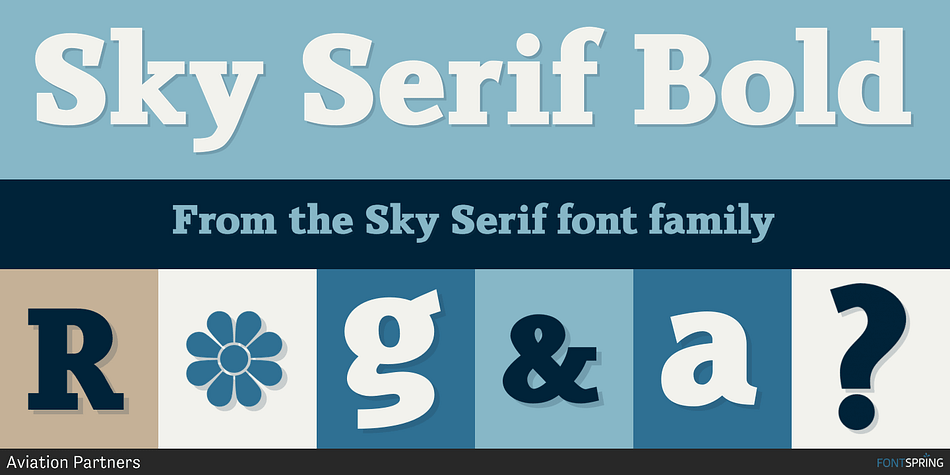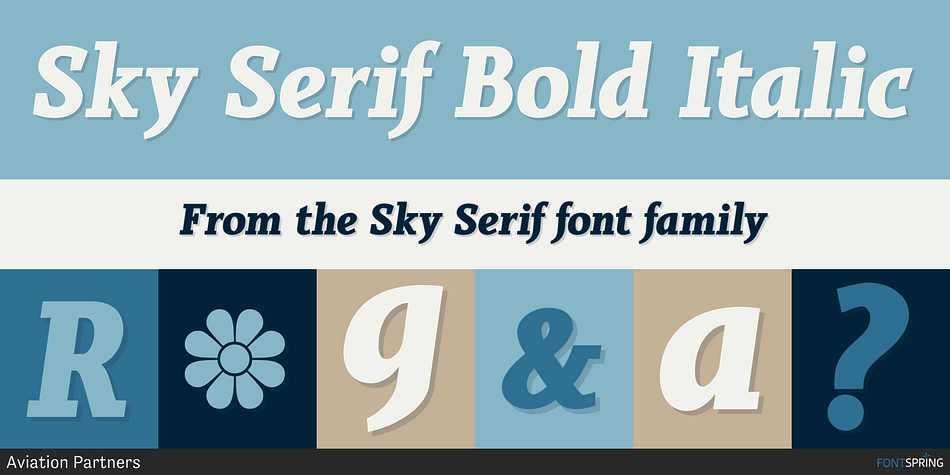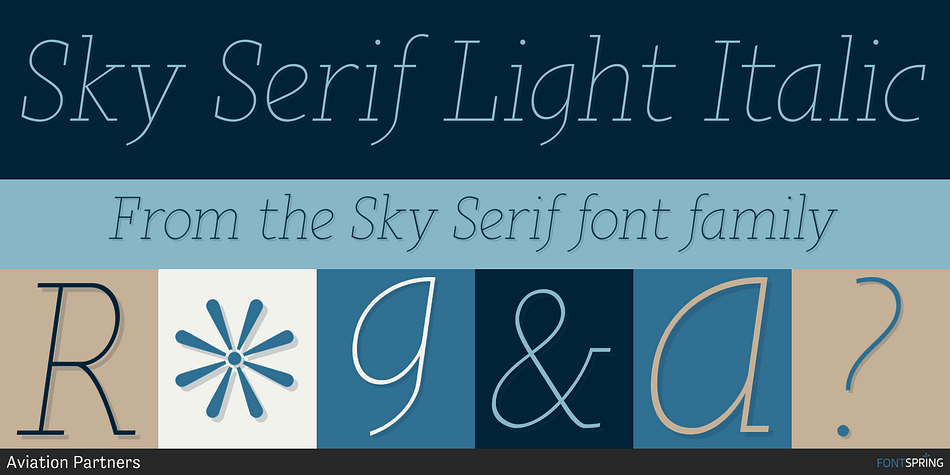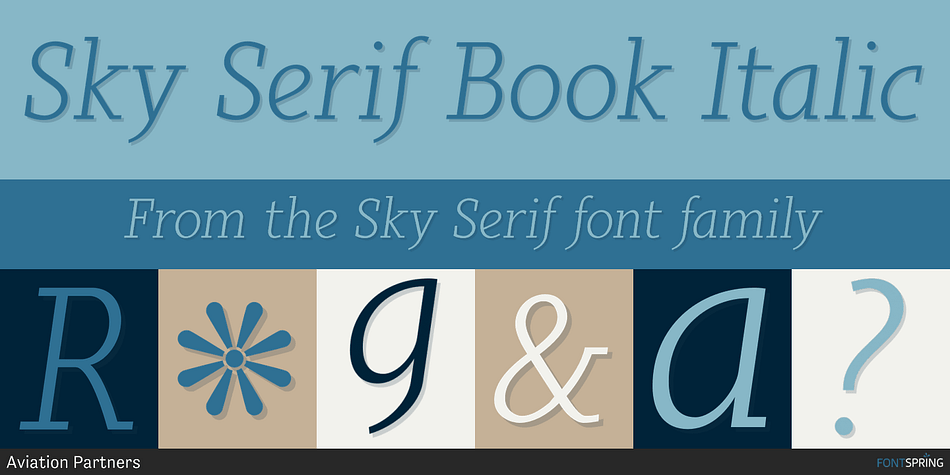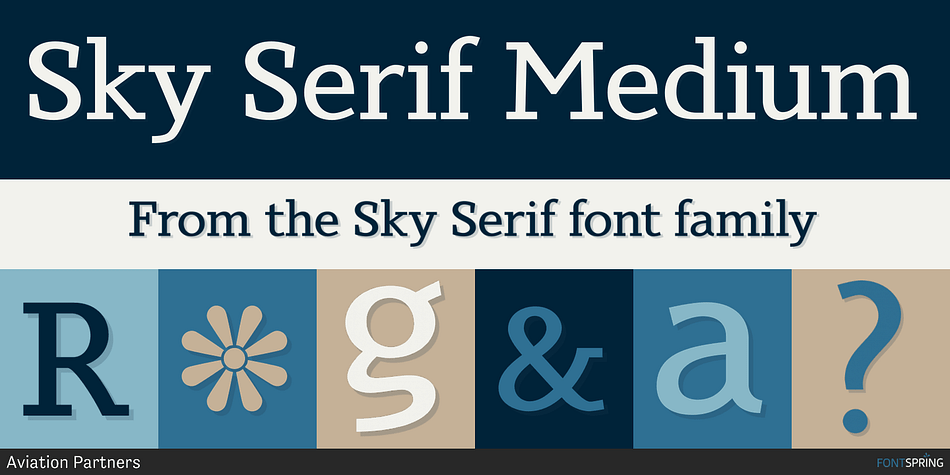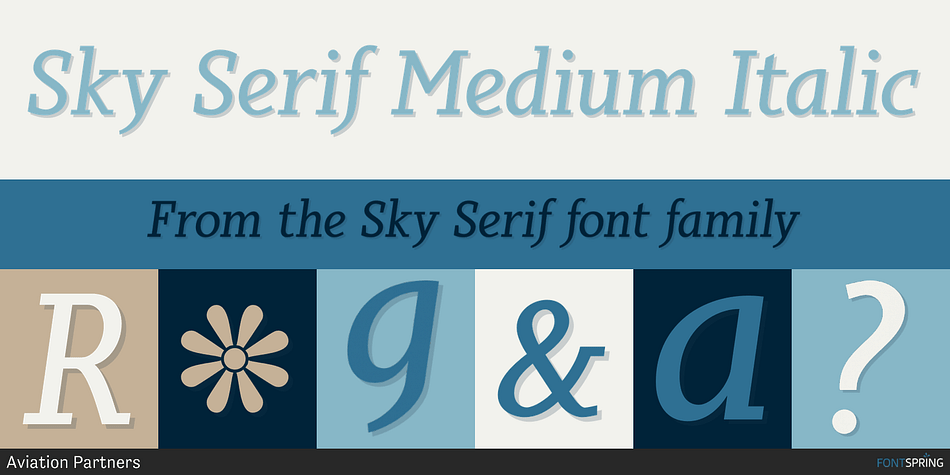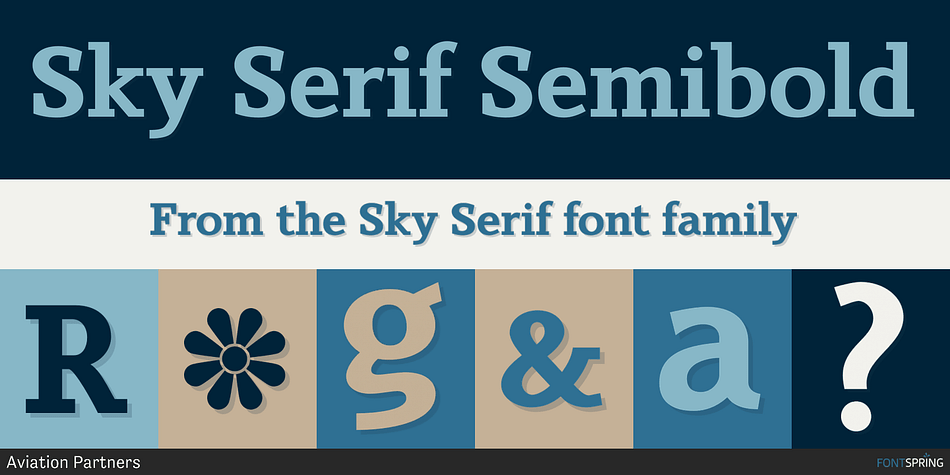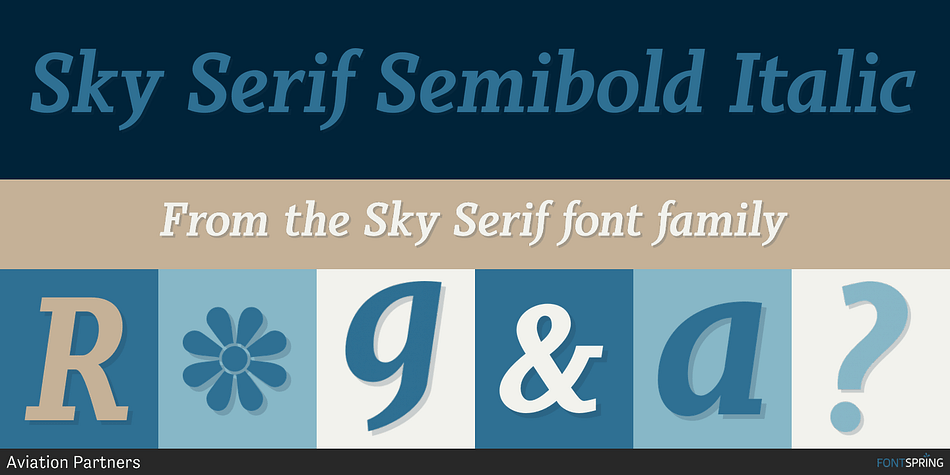
Sky Serif
About Sky Serif
Sky Serif is a clean-cut slab-serif design. The six weights provide extreme variations and great flexibility making it useful for reports and newsletters where a mix of weights can be used to good effect.